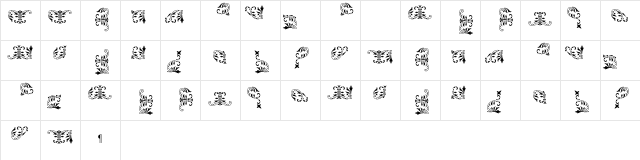
Borders Bourbon Street Font Preview
Borders Bourbon Street
Borders Bourbon Street Font Details
| Style | Bourbon Street |
Design Context for Borders Typeface
Borders is a composed and adaptable typeface that performs quietly and consistently across a wide range of design contexts.